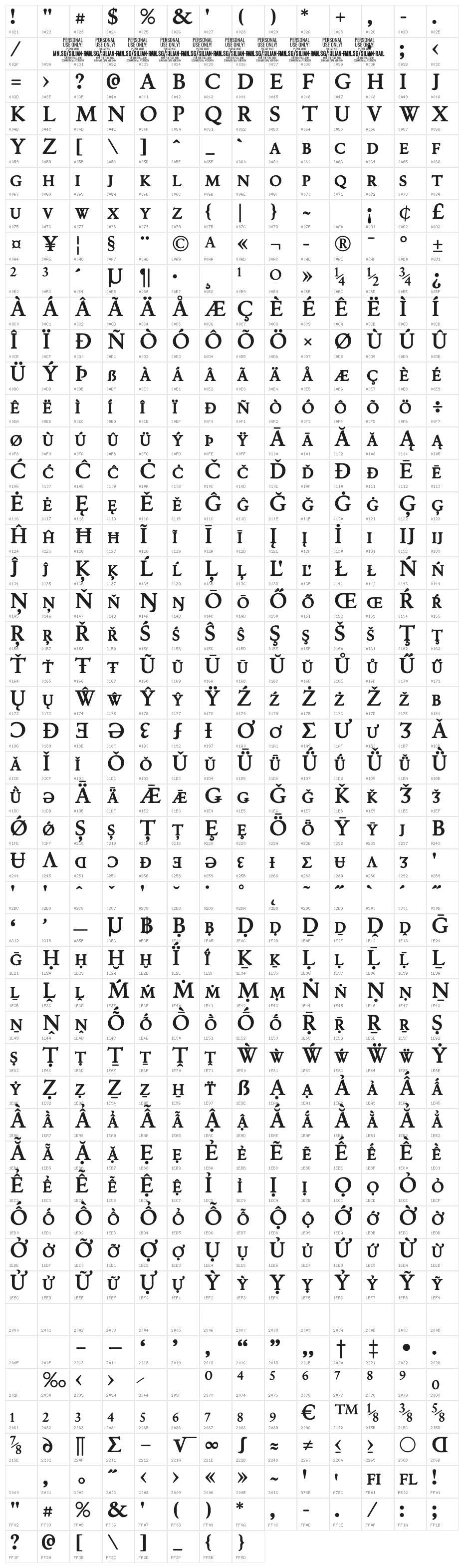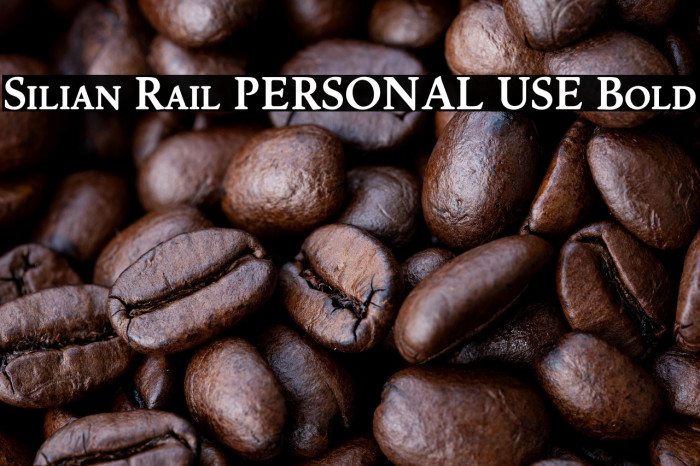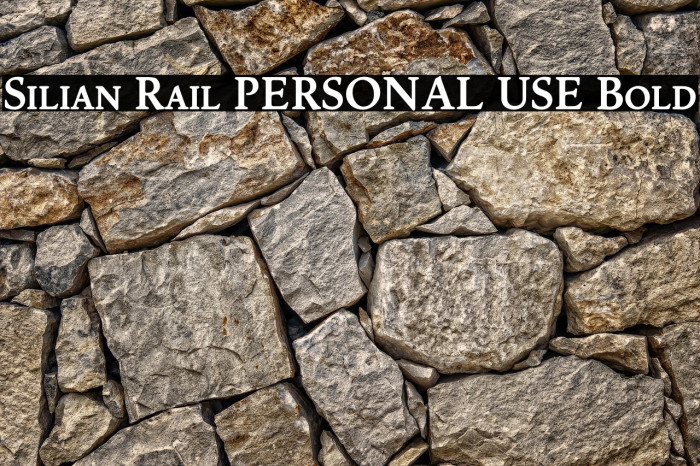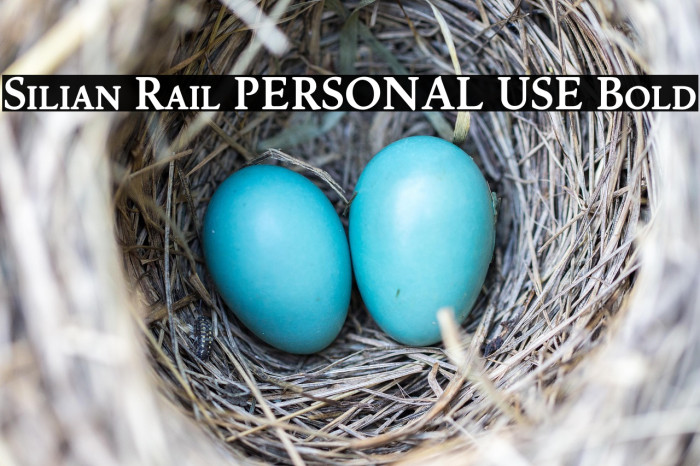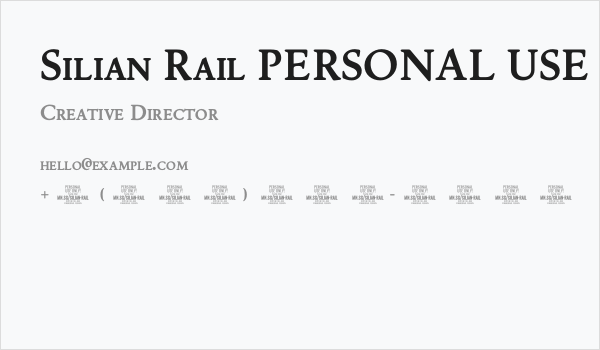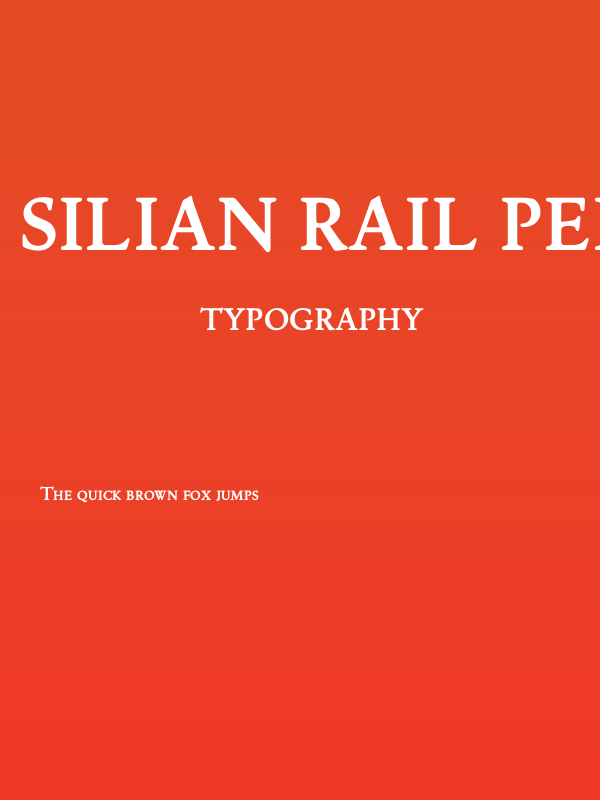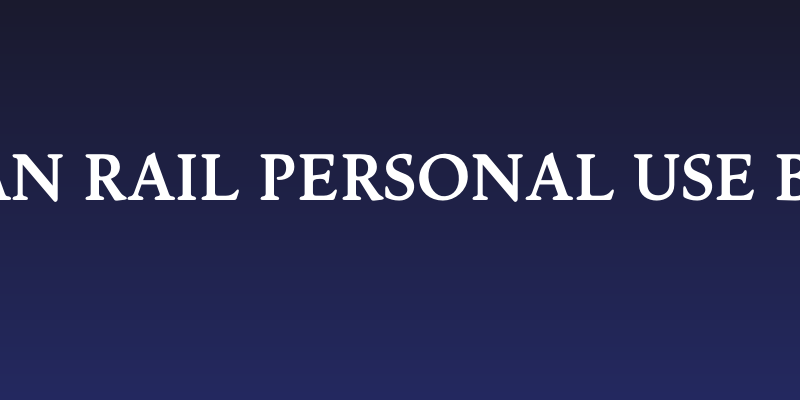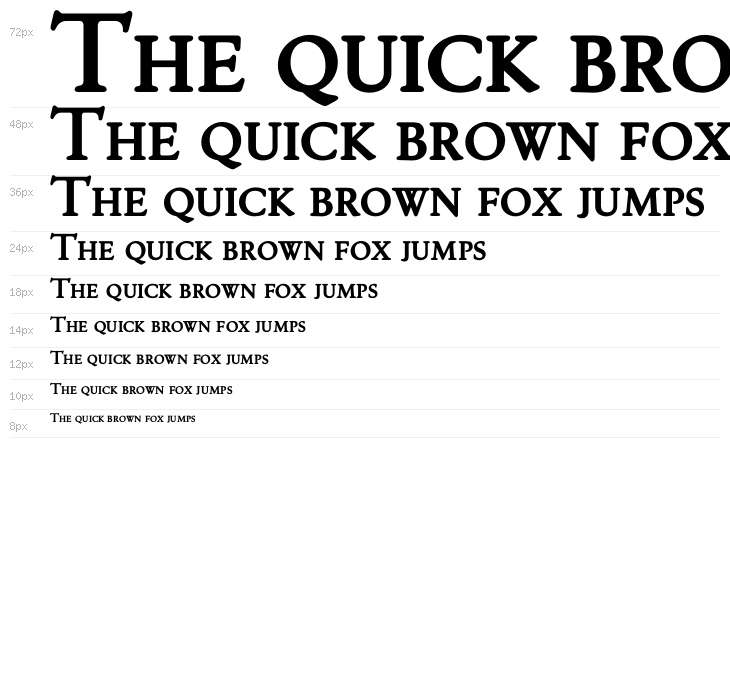
Silian Rail PERSONAL USE Bold Font
Silian Rail PERSONAL USE Bold Description
This font features a bold and classic serif style with strong, pronounced strokes and a traditional appearance. The uppercase letters are well-defined with a slight flair at the ends of the strokes, giving it a sophisticated and authoritative look. The lowercase letters maintain the same boldness, ensuring readability and consistency across different text sizes. The numerals are clear and distinct, matching the overall boldness of the font. Special characters are included, providing versatility for various uses. The font's bold nature makes it suitable for impactful headlines and titles.